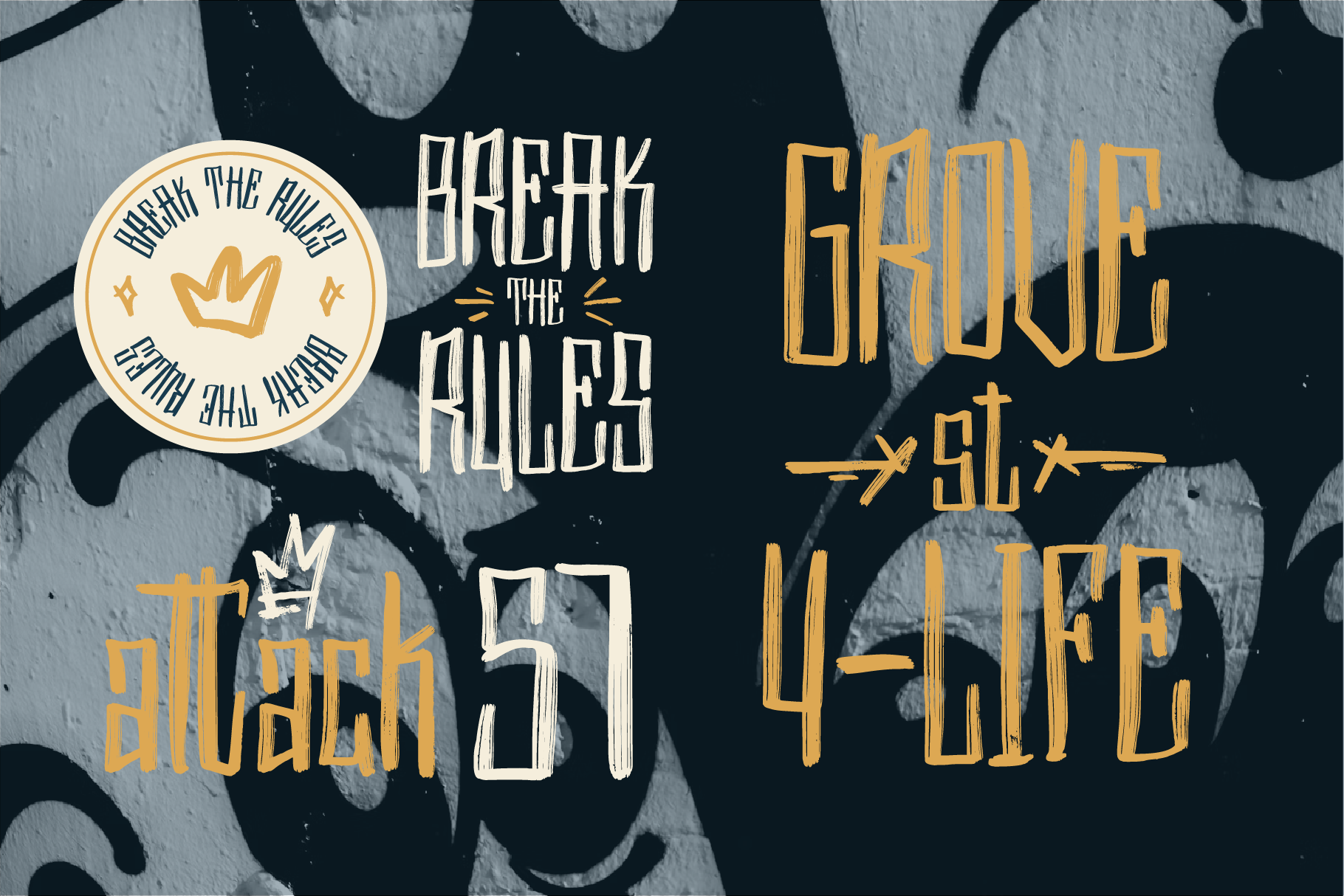
Underwest – Urban Display Font
Underwest is a tall, condensed display typeface with a raw, vintage feel. Inspired by old factory signs, underground music scenes, and graffiti textures, this font brings a gritty charm to modern design projects. With its elongated strokes and edgy flow, it’s ideal for bold visuals that blend nostalgia with attitude.
Use Underwest for music posters, alternative branding, editorial layouts, apparel graphics, or anything that needs a strong, distinctive voice.
- Uppercase & lowercase letters
- Numbers, punctuation & special characters
- Multilingual support
- Underwest dingbats
Great for:
- Posters & album art
- Streetwear & edgy branding
- Zines, covers & creative titles
- Vintage-inspired designs